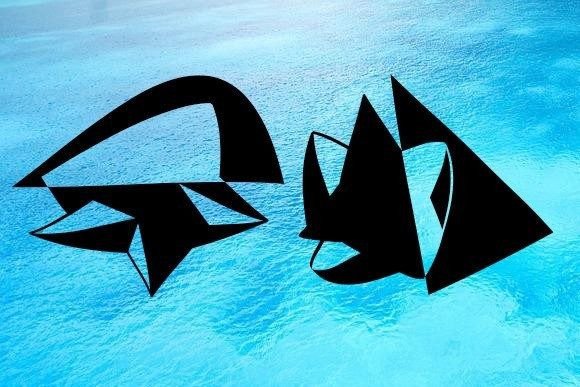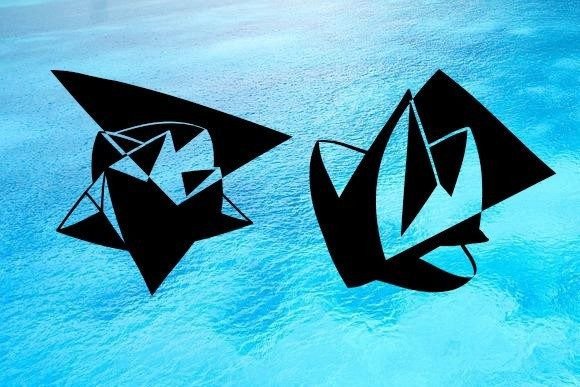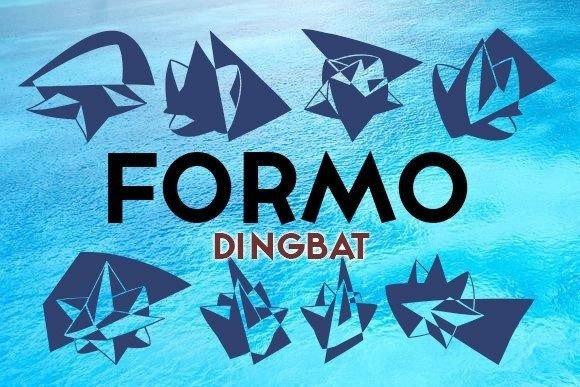
Discover the Versatility of Formo Font: Elevate Your Designs with this Awesome Dingbat
Are you tired of using the same old fonts in your design projects? Look no further than Formo Font, an incredible dingbat that is sure to find its way into your best creations. With its unique and versatile design, Formo is perfect for a wide range of applications, from flyers and postcards to brochures, business cards, and more.
What is Formo Font?
Formo Font is a dingbat font, which means it’s made up of symbols, icons, and shapes rather than traditional letters and numbers. This type of font is perfect for designers and crafters who want to add a touch of personality and whimsy to their work. Formo Font is a carefully crafted collection of icons and shapes that can be used to create visually appealing and engaging designs.
What Makes Formo Font So Awesome?
So, what sets Formo Font apart from other dingbats? Here are just a few reasons why Formo is an awesome addition to any designer’s toolkit:
- Unique and Versatile Design: Formo Font features a wide range of icons and shapes that can be used in a variety of contexts. From geometric shapes to abstract icons, Formo has something for every design style.
- Easily Customizable: With Formo Font, you can easily customize your designs to fit your brand or project’s unique needs. Use the icons and shapes as-is, or experiment with different colors, sizes, and arrangements to create something truly one-of-a-kind.
- Perfect for a Wide Range of Applications: Whether you’re designing flyers, postcards, brochures, or business cards, Formo Font is the perfect choice. You can also use it to create social media graphics, website headers, and more.
How to Use Formo Font in Your Designs
Using Formo Font in your designs is easy! Here are a few tips to get you started:
- Mix and Match Icons: Combine different icons and shapes to create a unique and visually appealing design. For example, you could pair geometric shapes with abstract icons to create a striking contrast.
- Experiment with Color: Don’t be afraid to experiment with different colors and color combinations. Formo Font looks great in bold, bright colors, but it can also be used in more muted, pastel shades.
- Use Formo Font as a Accent: Use Formo Font as an accent to add visual interest to your design. For example, you could use it to create a decorative border or add a pop of color to a text-heavy design.
Why Designers and Crafters Love Formo Font
Formo Font has quickly become a favorite among designers and crafters, and it’s easy to see why. Here are just a few reasons why Formo Font is a must-have for any creative:
- Saves Time: With Formo Font, you don’t have to spend hours creating custom icons and shapes from scratch. Simply use the pre-made icons and shapes to speed up your design process.
- Adds a Touch of Personality: Formo Font adds a touch of personality and whimsy to any design. Whether you’re creating a business card or a flyer, Formo Font helps you stand out from the crowd.
- Perfect for DIY Projects: Formo Font is perfect for DIY projects, such as crafting, scrapbooking, and card-making. Use it to add a professional touch to your handmade creations.
In conclusion, Formo Font is an awesome dingbat that is sure to elevate your designs and take them to the next level. With its unique and versatile design, ease of use, and wide range of applications, Formo Font is a must-have for any designer or crafter. So why wait? Download Formo Font today and start creating amazing designs that will leave a lasting impression!